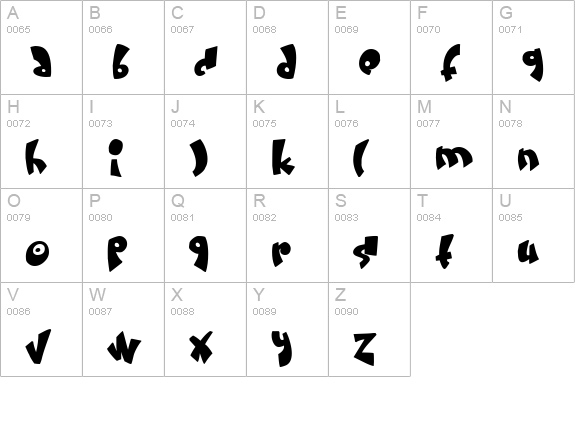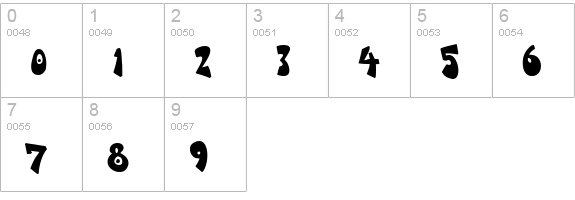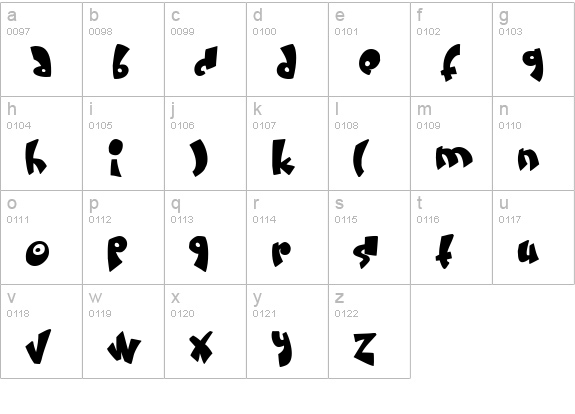
Cream and sugar Font Details
Cream and Sugar font is a delightful and elegant typeface that exudes a sense of sophistication and charm. With its smooth curves and graceful lines, this font is perfect for adding a touch of refinement to your designs. The combination of the creamy smoothness and the sweetness of the sugar-inspired details make Cream and Sugar font a truly unique choice for a variety of projects. This versatile font is suitable for a wide range of applications, from branding and logo design to invitations and packaging. Its classic yet modern aesthetic makes it a timeless addition to any design project. Whether you're looking to create a luxurious feel or a whimsical touch, Cream and Sugar font has you covered. Best of all, Cream and Sugar font is completely free to download at FontsMarket.com. So go ahead and add this beautiful typeface to your collection today and elevate your designs to the next level with its elegant and sophisticated charm.